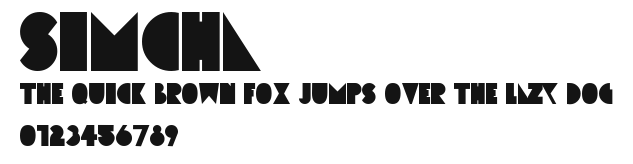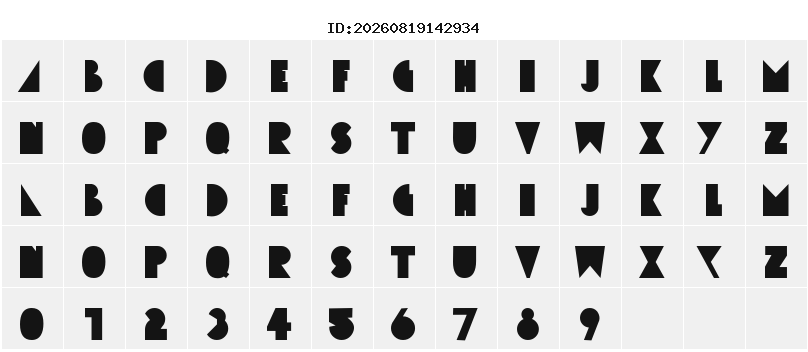
Simcha Preview
• Font Name: Simcha
• Full Font Name: Simcha
• PostScript Name: Simcha
About Simcha.ttf
Simcha.ttf is a modern, elegant sans-serif font designed for ultimate readability and visual harmony. Perfect for branding, headlines, web design, and print materials.